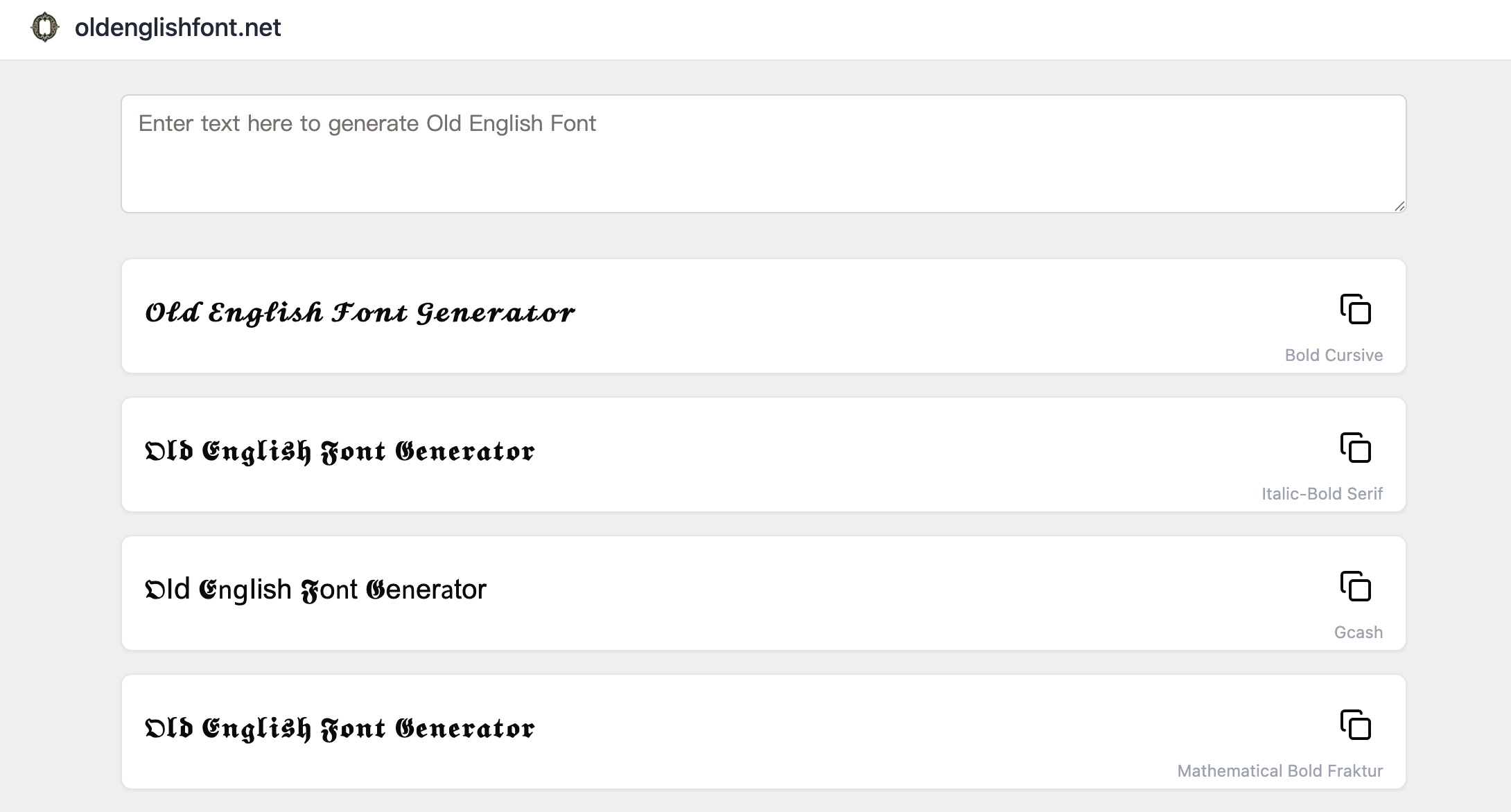
Transform text into elegant Old English fonts
Old English, also known as blackletter, originated around 1000 years ago and was used as a script across Western Europe. Welcome to our free Old English font generator - your gateway to elegant Gothic typography. Transform plain text into stunning Old English fonts instantly. Create Gothic lettering for Instagram, TikTok, social media instantly.